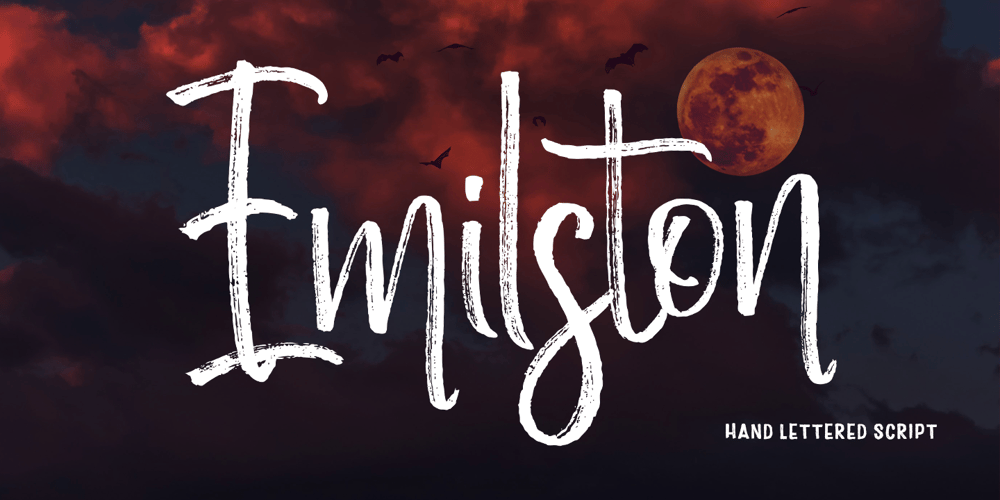
Emilston
Emilston font
Emilston Font Family was designed by Yur Lis and published by Stripes Studio. Emilston contains 2 styles and family package options. Emilston is a new font that is brushed in very attractive way with a natural, detailed and perfect texture. Emilston comes with additional Emilston Underlines.Perfect for branding projects, logos, product packaging, posters, invitations, greeting cards, news, blogs, everything including personal charm, and more.